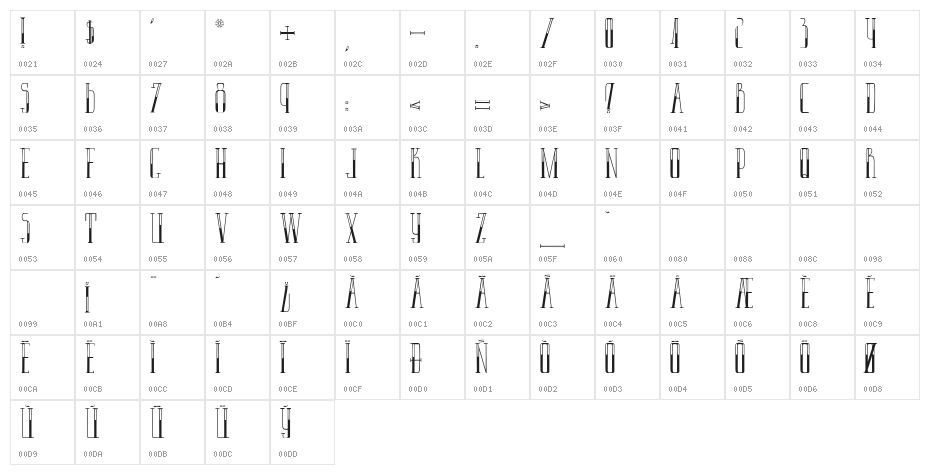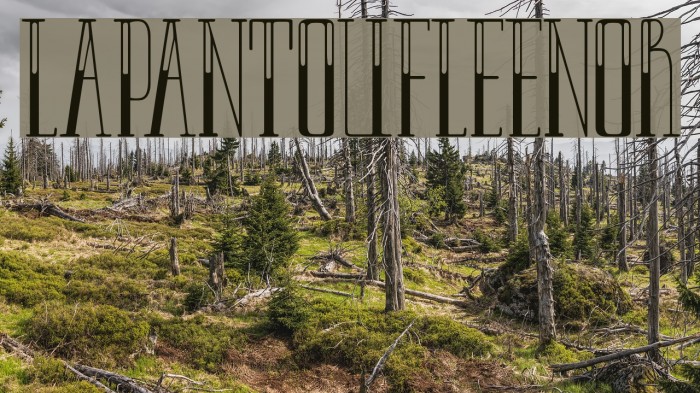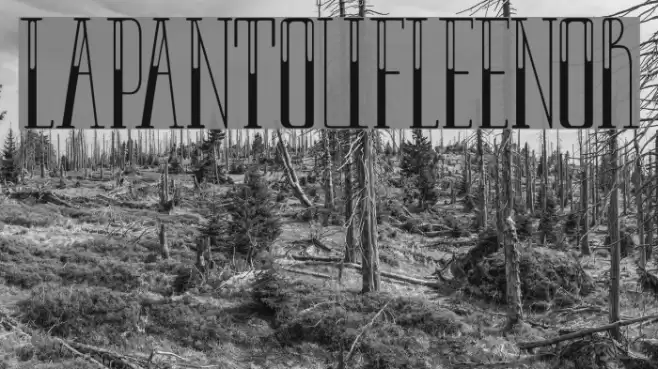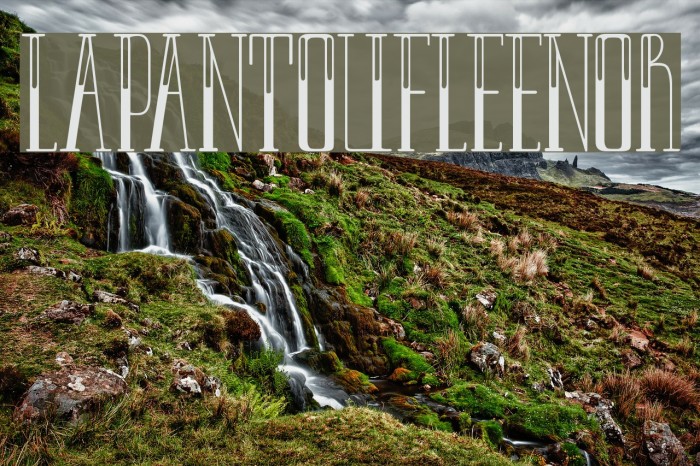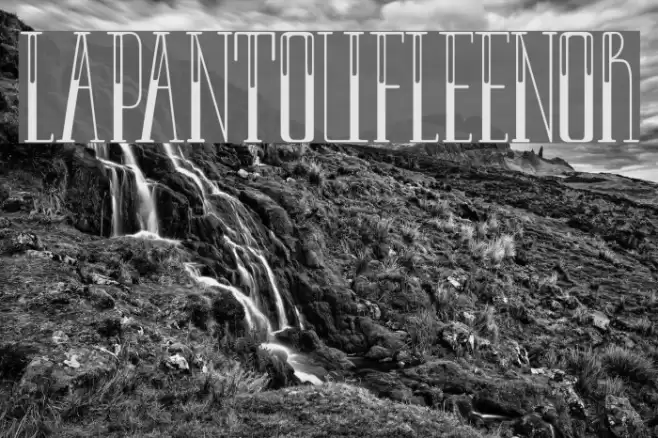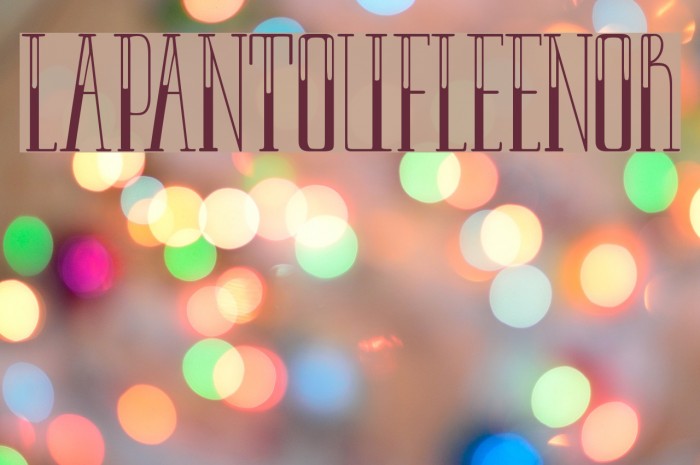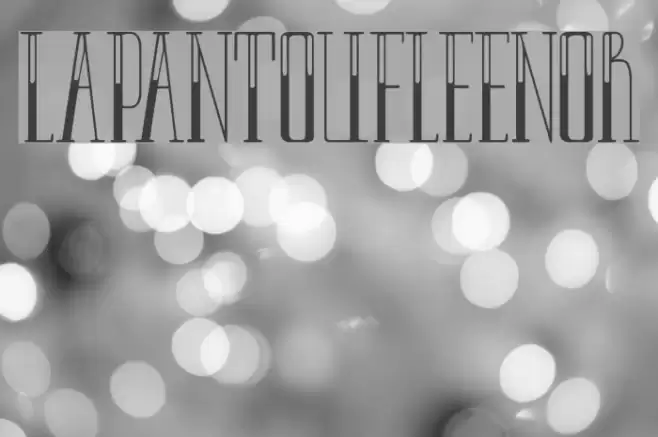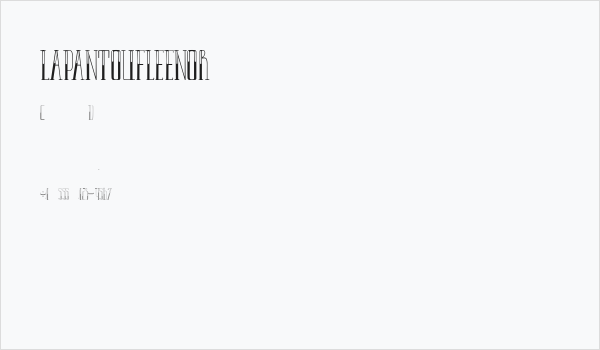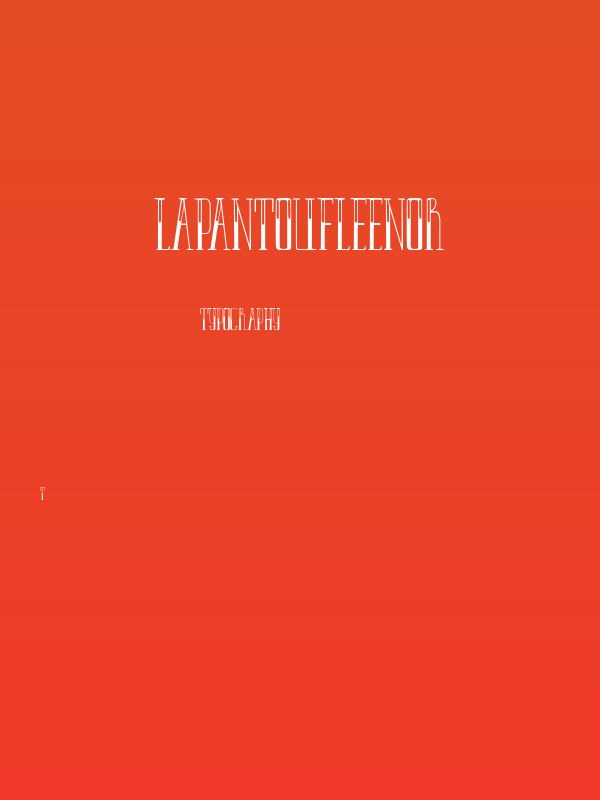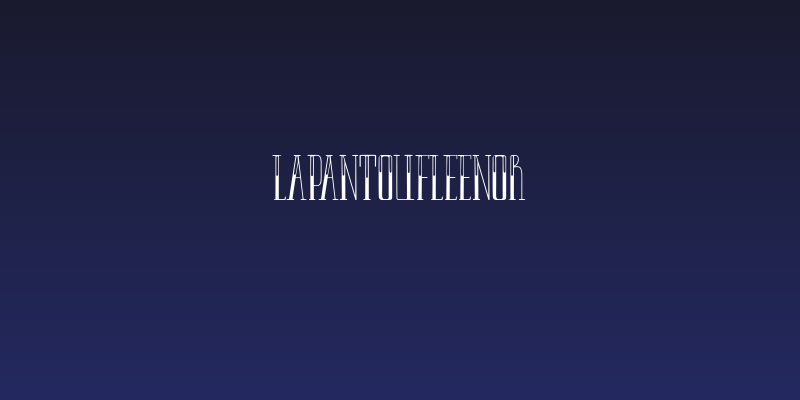
LAPANTOUFLEENOR Font
LAPANTOUFLEENOR Description
This font features a tall, narrow design with a distinct Art Deco influence. The characters are elongated with sharp, clean lines and minimal curves, giving it a sophisticated and elegant appearance. The uppercase letters are particularly striking, with vertical emphasis and subtle serifs that add a touch of classic style. The lowercase letters maintain the same elongated form, ensuring consistency across the typeface. Numbers and special characters are designed to match the overall aesthetic, making this font versatile for various applications. Its unique style makes it suitable for projects that require a touch of vintage elegance combined with modern flair.
| Proposed Projects | Ideal for luxury branding, event invitations, editorial design, and high-end product packaging. |